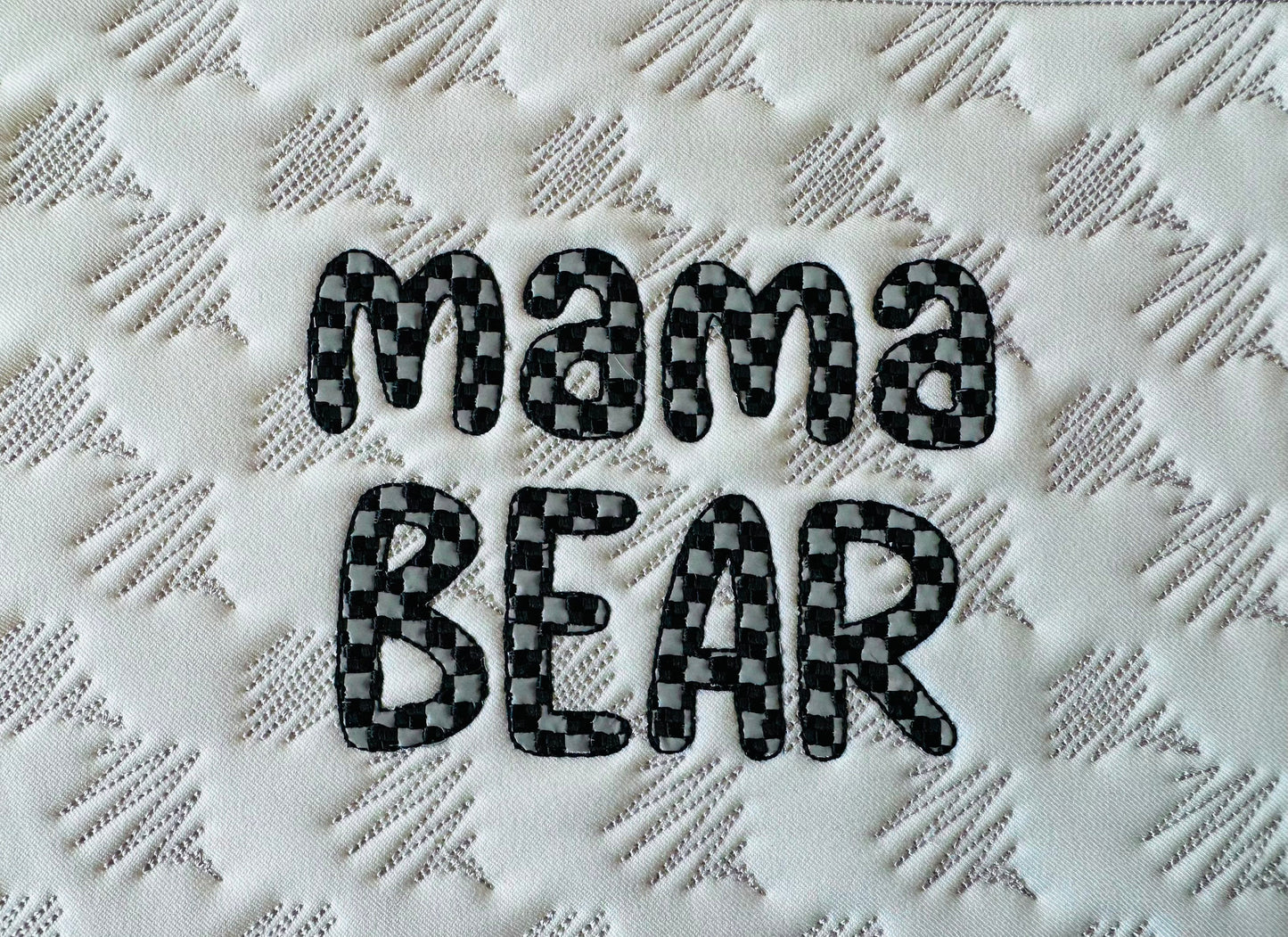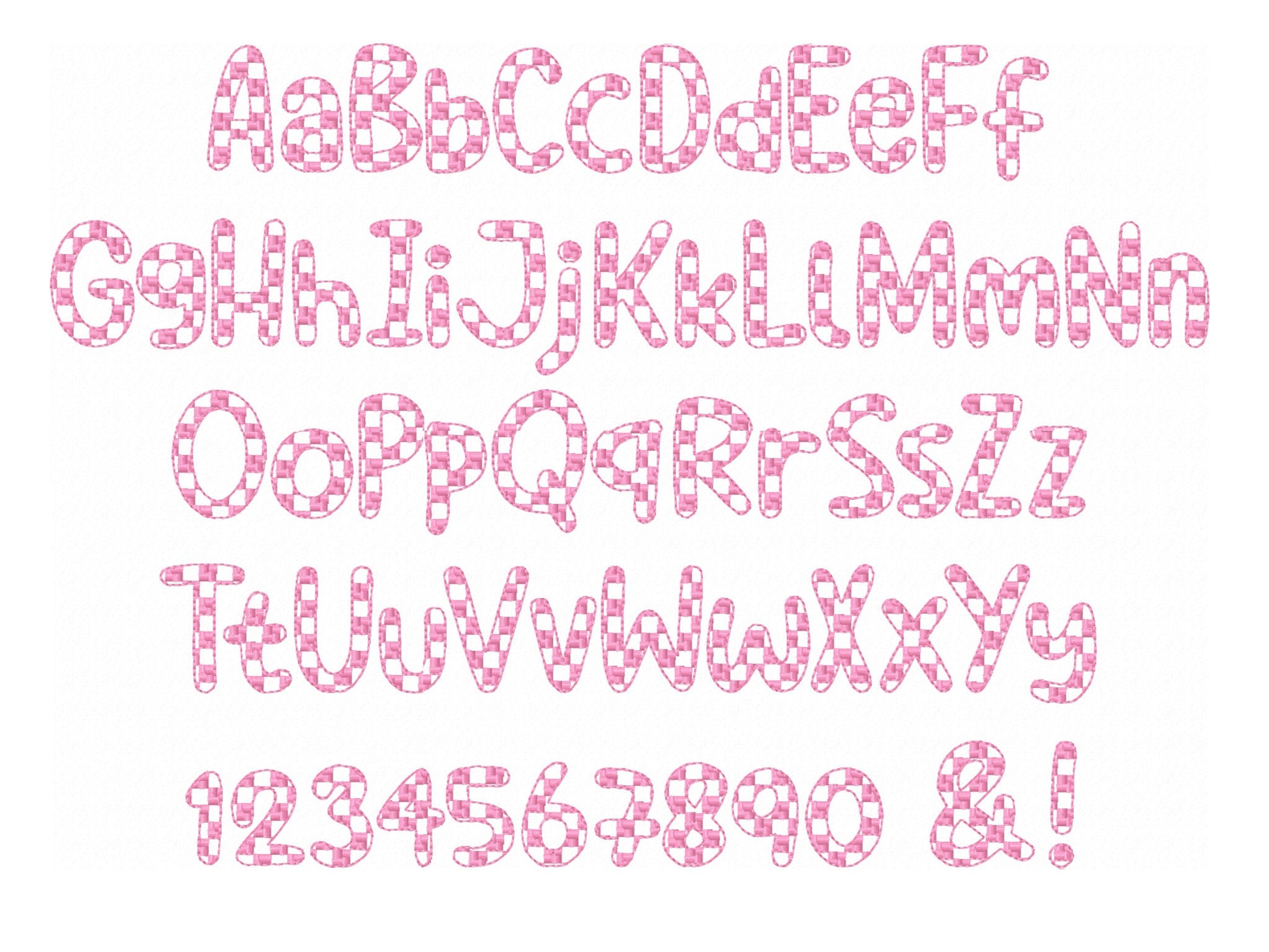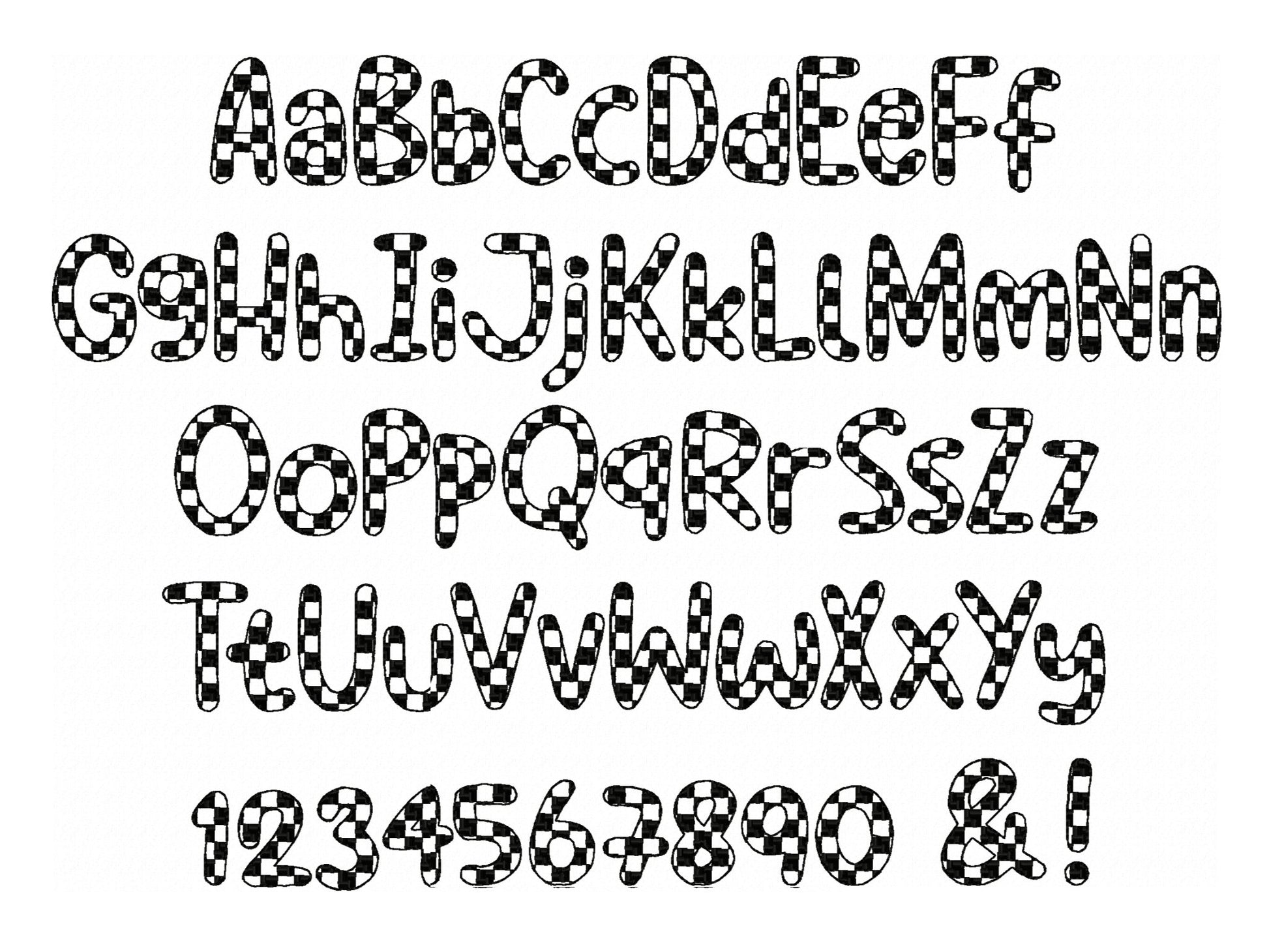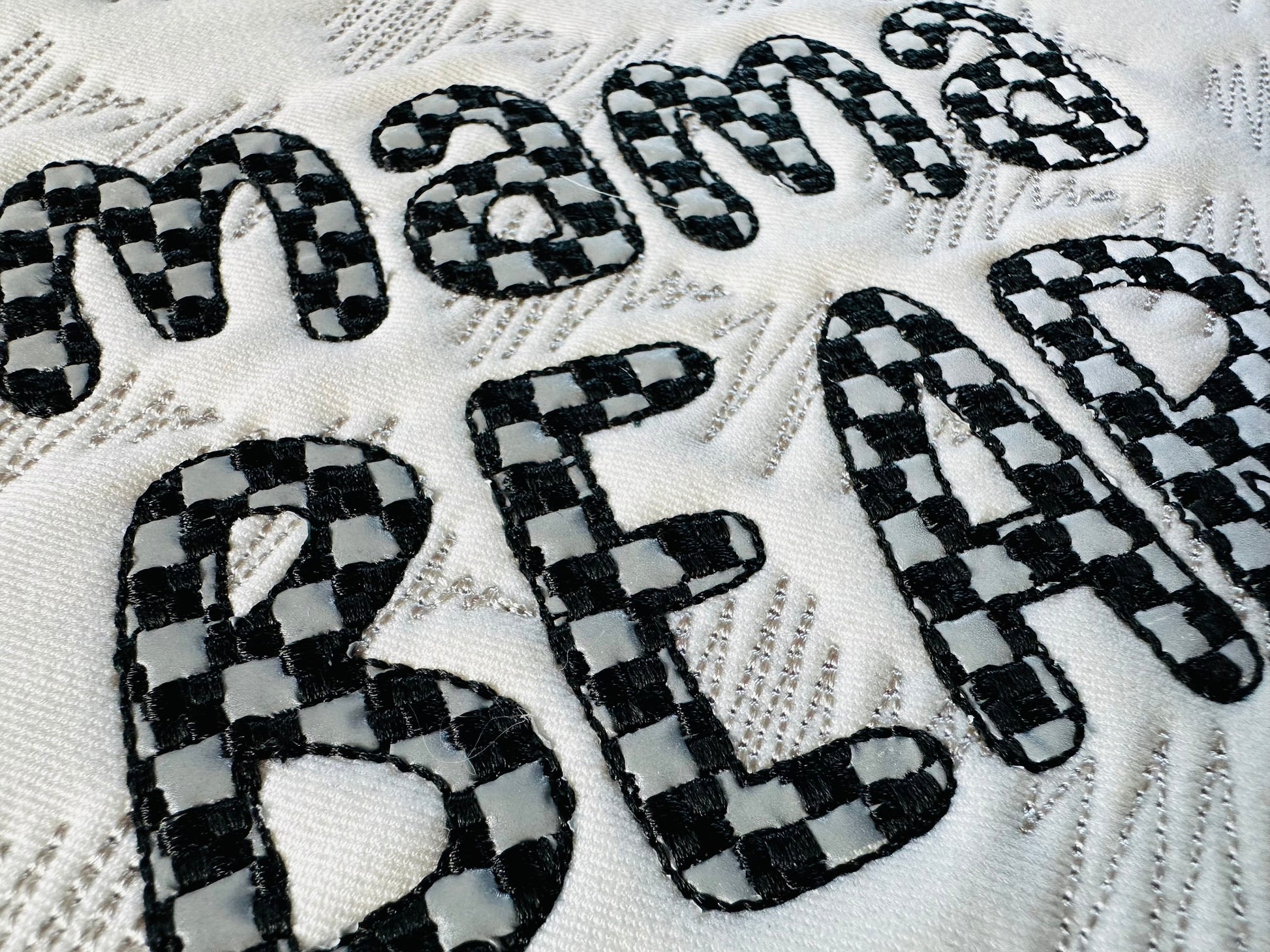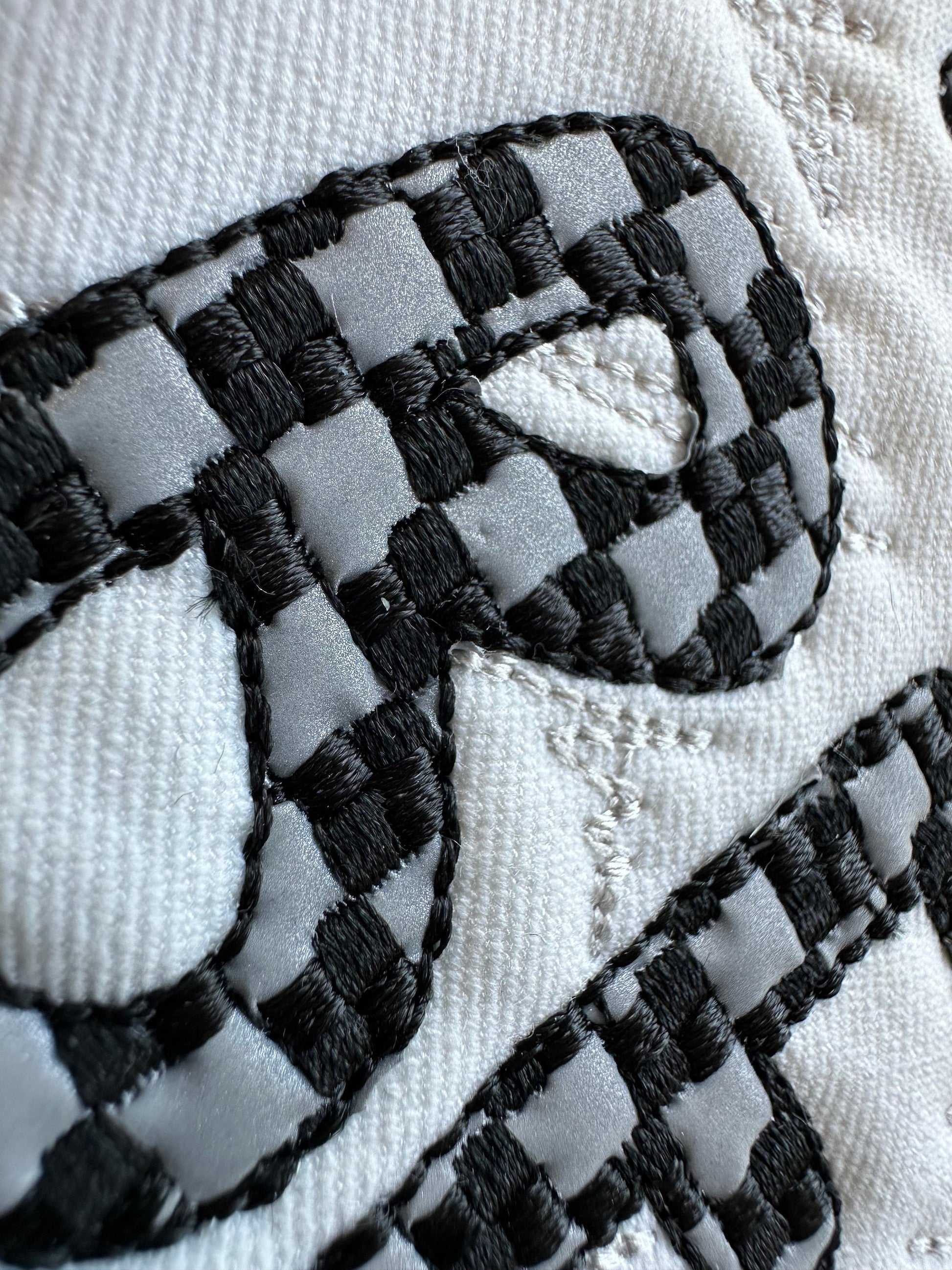
Checks Patterned Font
Or click to open the linkA see-through font with a checkered pattern in fill stitch and a bean stitch outline. Use it as is or as raggedy edge applique for names, shirts and bags.
Uppercase and lowercase letters, numbers 0 to 9 and punctuation, in six sizes: 0.7, 0.9, 1.1, 1.5, 2 and 2.5 inches.
- Checks patterned font
- Uppercase and lowercase letters, numbers 0-9, punctuation
- 6 sizes, 0.7 to 2.5 in